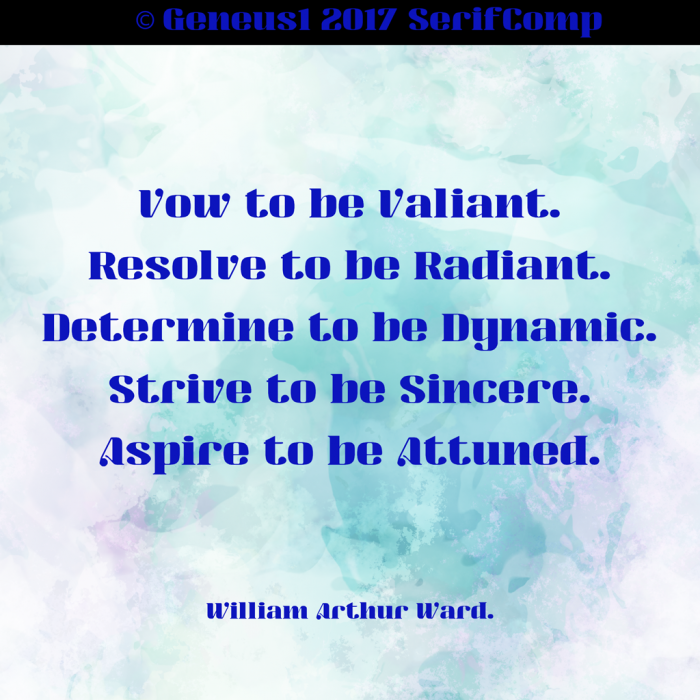
• G1 Radia. A scaled down version of an originally larger fontstruction. Lots of details with smooth micro bullnose serifs, high contrast stroke lines, and decorative ball terminals.
Show off! But seriously, very sexy and all that.
Any plans on alternate V and W?
I agree with funk_king, this is extremely pleasant to look at and would remain beautiful even if used to write gobbbledygook.
Great three entries, I like especially this one, dear master.
Congratulations! FontStruct Staff have deemed your FontStruction worthy of special mention. “G1 Radia” is now a Top Pick.
wish u can make these also
á í ú é ó ü ñ
for spanish user
there a huge amount of spanish users
Bravo, what a wonderful and excellent mix of curves and diagonals. Only the 7 is a little out of balance. ; )
I love this...beautiful work.  :)
@anonymous: Simple flips added for the cap and lc V & W.
@beate: I've added some experimental 7's just for you. Not my normal designs, but I think they're functionally amusing nonetheless.
I like the alt 7 with the solid leg.
Nice fonts. If I could clone it then I would like to add few vovels necessary for Hungarian text.  The following characters would make the set usable for Hungarian:   áÁéÉíÍóÓöÖőŐúÚüÜűŰ
Such a clean and classy header font. I tend to do personal mockups for my own use and Radia also looks sharp against this wordpress theme.
Gorgeous font.